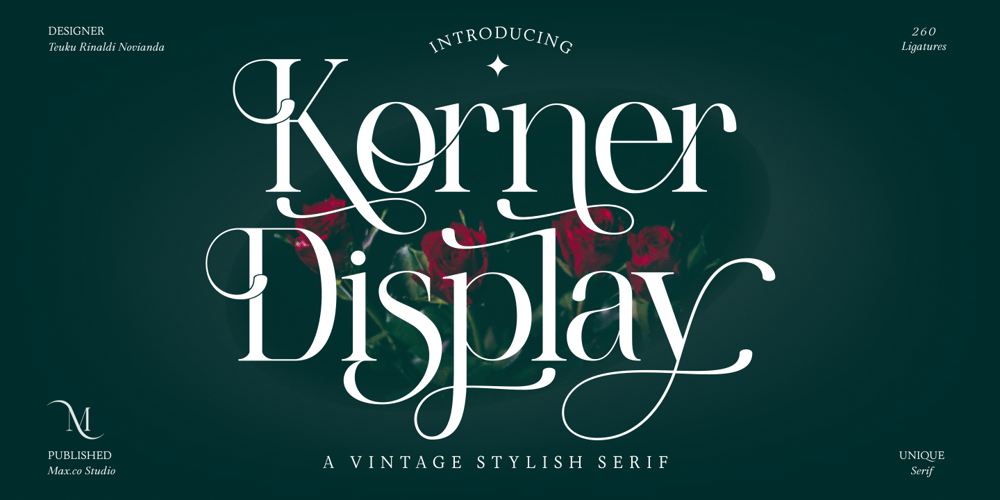
Korner Display Font Family was designed by Teuku Rinaldi Novianda and published by Max.co Studio. Korner Display contains 3 styles and family package options. Korner Display is a vintage stylish serif font with a unique alternates and ligatures, a high contrast and light font perfect for feminine logo signs, fashion heads & editorial designs, branding projects, Clothing Branding, packaging, magazine headings, advertising, T-shirts, postcards and much more.Korner Display features 691 glyphs. 202+ alternates characters, 260+ ligatures and multiple language support.To enable the OpenType Stylistic alternates, you need a program that supports OpenType features such as Adobe Illustrator CS, Adobe Indesign & CorelDraw X6-X7.You can also enable the OpenType Stylistic alternative, using Character Map (Windows), Nexus Font (Windows), Font Book (Mac) or a software program such as PopChar (for Windows and Mac).Thank you…